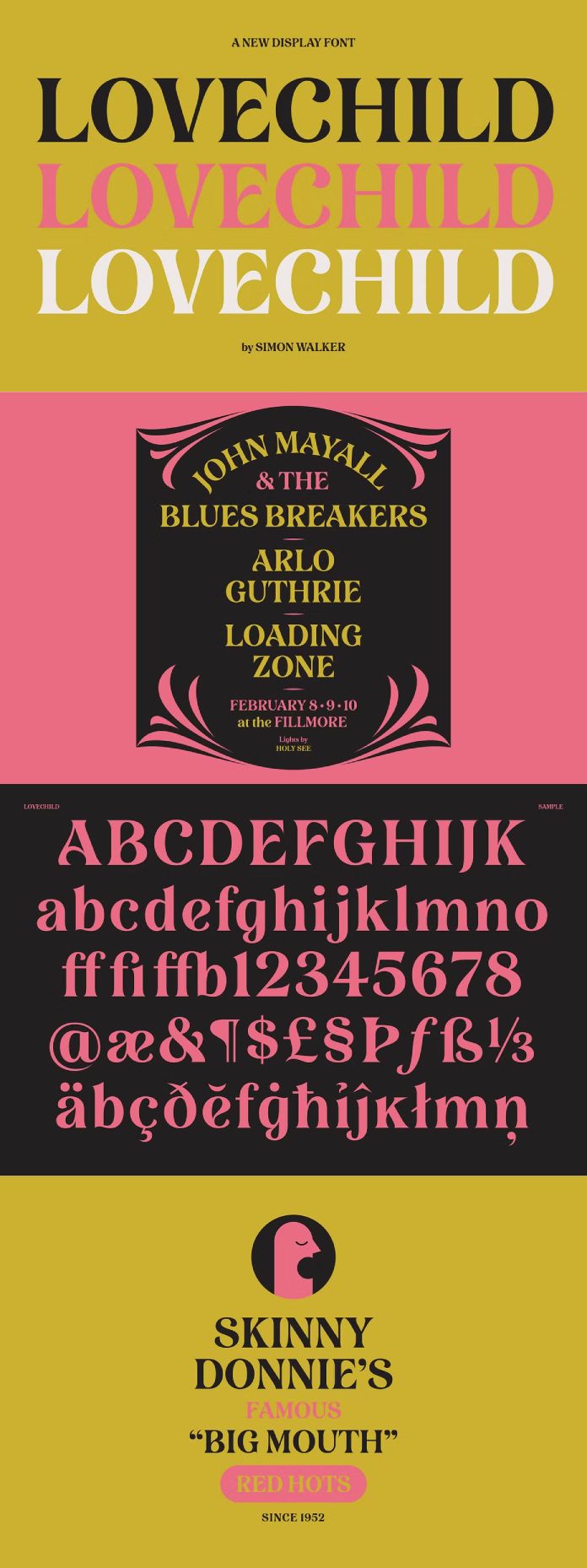
Embrace Nostalgia with the Lovechild Font: A Tribute to Playful Vintage Typography
Something is enchanting about a typeface that whispers of a bygone era. Enter Lovechild, the brainchild of the talented designer Simon Walker. With its bold strokes, characteristic serifs, and rounded, playful design, Lovechild is more than just a font – it’s a journey back to a time when typography was an art form in itself.
At first glance, Lovechild beckons with its nostalgic charm. The curves and lines evoke memories of old-fashioned signage, the kind that adorned quaint storefronts and bustling city streets. Yet, despite its vintage inspiration, Lovechild maintains a timeless quality that seamlessly blends the old with the new.
One of the most striking features of Lovechild is its boldness. Each letter stands tall and proud, commanding attention with its presence. Whether used for headlines, posters, or logos, Lovechild makes a statement that is impossible to ignore. It’s the kind of font that doesn’t just speak – it shouts, exuding confidence and personality with every stroke.
But beneath its bold exterior lies a subtle playfulness that sets Lovechild apart. The rounded edges soften its edges, giving it a friendly, approachable vibe. It’s as if each letter is extending a warm invitation, inviting you to dive into its world of nostalgia and whimsy.
Lovechild’s versatility is another aspect worth celebrating. With both upper and lowercase letters at your disposal, the possibilities are endless. Whether you’re designing a vintage-inspired wedding invitation or crafting a retro-themed advertisement, Lovechild adapts effortlessly to any context, adding a touch of charm and character wherever it goes.
But perhaps what truly sets Lovechild apart is the passion and craftsmanship behind its creation. Simon Walker’s attention to detail is evident in every curve and serif, a testament to his dedication to the art of typography. Lovechild isn’t just a font – it’s a labor of love, a tribute to the rich history of vintage typography that continues to inspire designers to this day.
With its timeless design, Lovechild stands as a timeless reminder of the power of nostalgia. It’s a font that transcends generations, capturing the imagination with its boldness, charm, and playful spirit. So why not embrace a bit of nostalgia in your next design project? Let Lovechild be your guide as you journey back in time to a simpler, more whimsical era of typography.